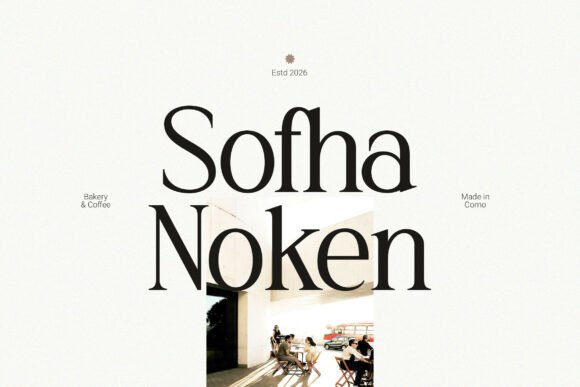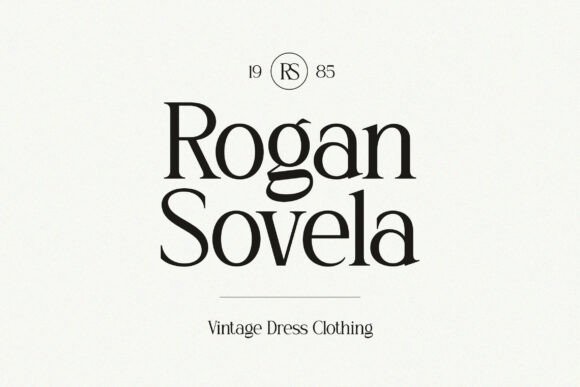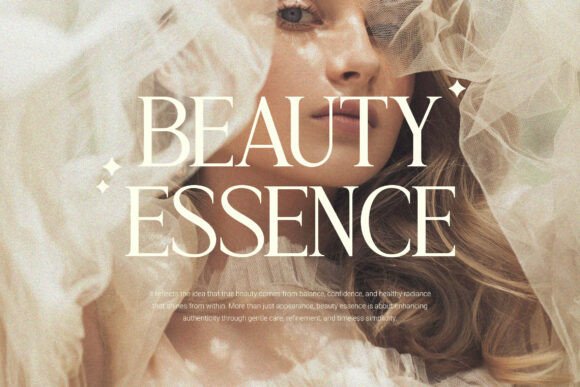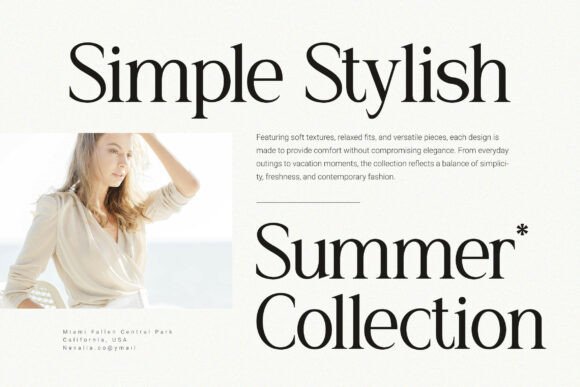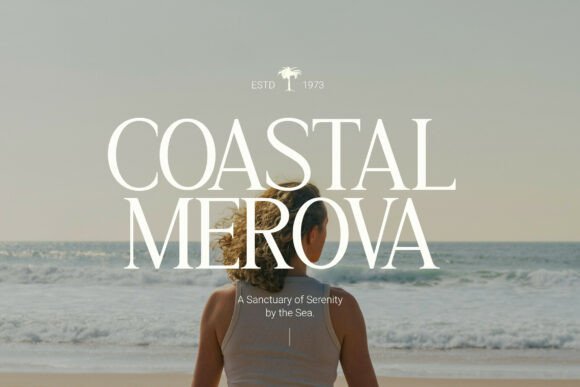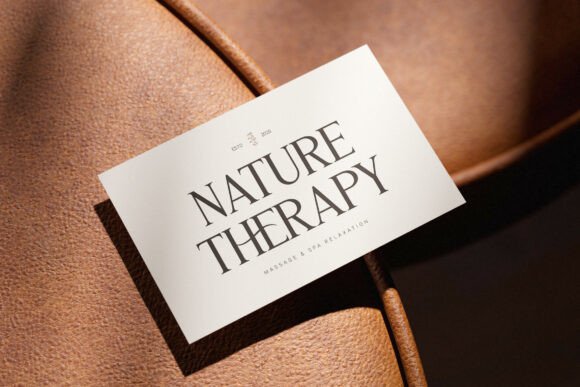
Introducing De Floria: The Ultimate Serif Font for High-End Commercial Projects
In the world of typography, a well-crafted font can make all the difference in elevating a brand’s visual identity. For designers and crafters seeking to create premium commercial projects, De Floria is a beautifully designed serif font that strikes the perfect balance between timeless vintage charm and modern sophistication.
A Font that Exudes Sophistication and Elegance
De Floria is specifically designed to bring a touch of luxury to high-end commercial projects. Its smooth curves and distinct serif details make it highly versatile, while maintaining a strong, luxurious character. This font is perfect for designers looking to create a premium feel for their brand or product.
Key Features of De Floria
- Timeless Vintage Charm: De Floria’s classic serif design ensures that your brand or product stands the test of time, evoking a sense of tradition and heritage.
- Premium Modern Aesthetic: The font’s sleek and refined lines give it a modern edge, perfect for high-end commercial projects that require a sophisticated look.
- Smooth Curves and Serif Details: De Floria’s carefully crafted curves and serif details create a sense of elegance and refinement, making it ideal for luxury brands and products.
- Highly Versatile: This font can be used across a range of design applications, from brand identity and logo design to product packaging and advertising.
Perfectly Suited for Premium Commercial Design Projects
De Floria is the perfect choice for designers and crafters working on high-end commercial projects. Its luxurious feel and sophisticated aesthetic make it ideal for:
- Brand Identity & Visual Identity: Create a lasting impression with De Floria’s elegant and refined lines, perfect for establishing a strong brand presence.
- Logo Design: Make a statement with a custom logo designed with De Floria, conveying sophistication and luxury.
- Product Packaging & Labels: Elevate your product’s packaging with De Floria’s premium feel, perfect for high-end products.
- Mockups & Advertising: Create stunning mockups and advertisements with De Floria, guaranteed to grab attention.
- Magazine Headers & Editorial Layouts: Add a touch of elegance to your magazine or editorial layout with De Floria’s refined lines.
Why Choose De Floria?
With De Floria, you can:
- Elevate Your Brand: Create a premium feel for your brand or product, setting it apart from the competition.
- Save Time: With De Floria’s versatility and ease of use, you can save time and focus on other creative aspects of your project.
- Make a Lasting Impression: De Floria’s sophisticated aesthetic ensures that your design makes a lasting impression on your audience.
De Floria is the ultimate serif font for designers and crafters seeking to create premium commercial projects. Its timeless vintage charm, premium modern aesthetic, and highly versatile design make it the perfect choice for luxury brands and products. With De Floria, you can elevate your brand, save time, and make a lasting impression on your audience.
Whether you’re building a new brand from scratch or adding the final touch to a high-class product, De Floria delivers an effortlessly premium feel. Try De Floria today and experience the power of sophisticated typography in your design projects.